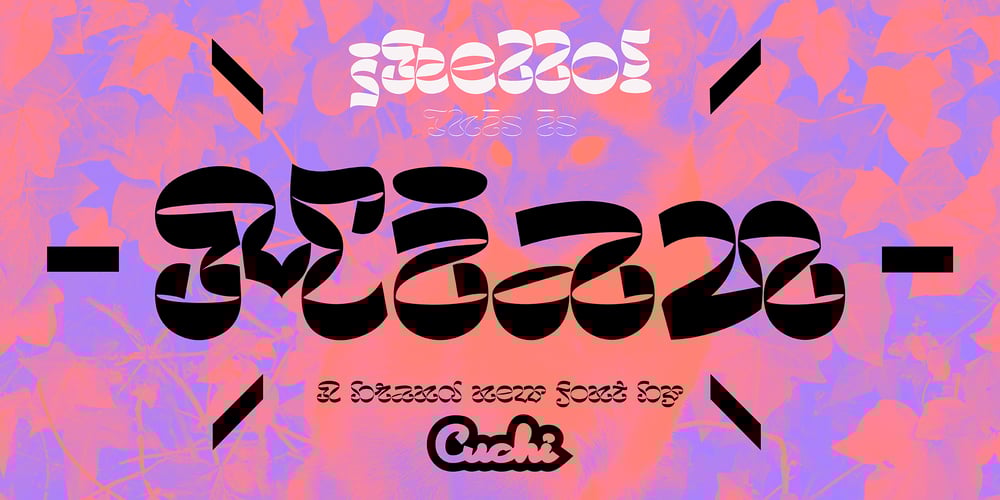
Miau Font Family was designed by Carlos Campos and published by Cuchi, qué tipo. Miau contains 3 styles and family package options. “Miau” is a display typeface designed by “Cuchi, ¡qué Tipo”! (Hey, what a type!”). Its name comes from the onomatopoeia of “Meow” in Spanish, and it is only to be used for letters or single words.It is built from the basic skeleton of cursive script letters, and its origin and main concept is based on experimenting with shapes that play the limit of readability. Being a variable format typeface, we have from the thinnest and lightest version (“Hiss”), to the thickest, dense and compact (“Purr”), passing through the average (“meow”).The final result of this experimentation is defined into a very contemporary typeface with a geometric, modular and “no-terrestrial” flavour. It aims to be a representation of the times we live about typographic design, a whole explosion of implausible experiments and formals researches.